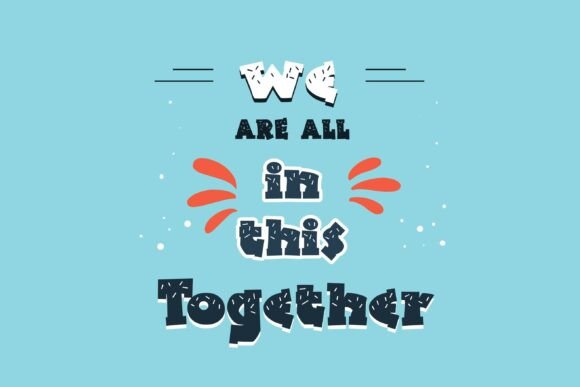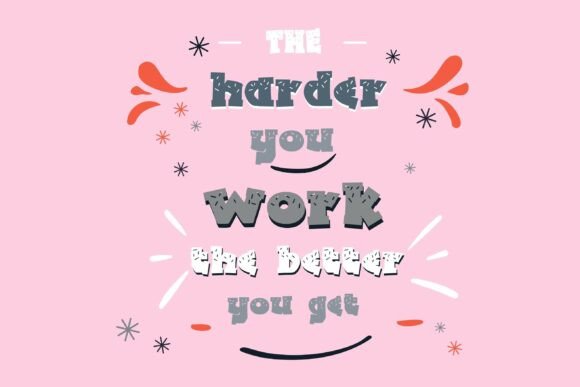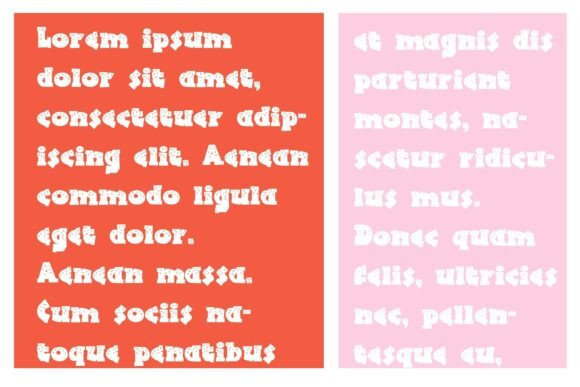
Introduction to Funmaker Festive Font
Bring the party to your canvas with Funmaker Festive, a high-energy display typeface that captures a โ€œjoyful-and-exuberantโ€ soul.
This font features thick, chunky block letterforms decorated with a rhythmic sprinkle of festive confetti patterns and playful, irregular edges With its hand-cut aesthetic and bold personality, Funmaker Festive is the premier choice for independent birthday invitation branding, holiday celebration posters, bakery menu titles, and high-impact โ€œparty-and-cheerโ€ social media headers.
Why Choose Funmaker Festive Font?
Funmaker Festive Font offers exceptional quality and versatility, making it a valuable addition to your design toolkit. Whether you’re creating for personal projects or commercial use, Funmaker Festive Font delivers professional results.